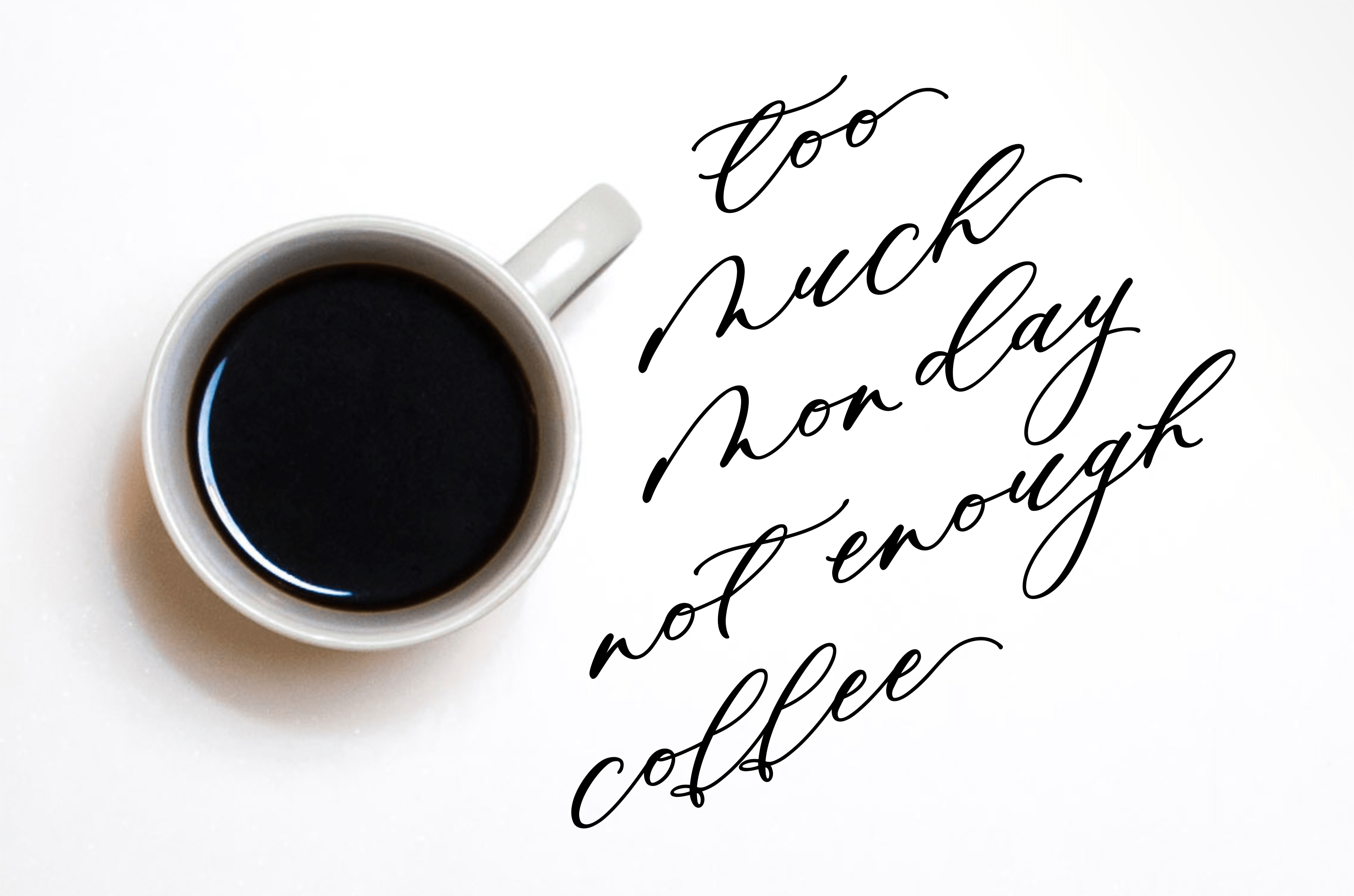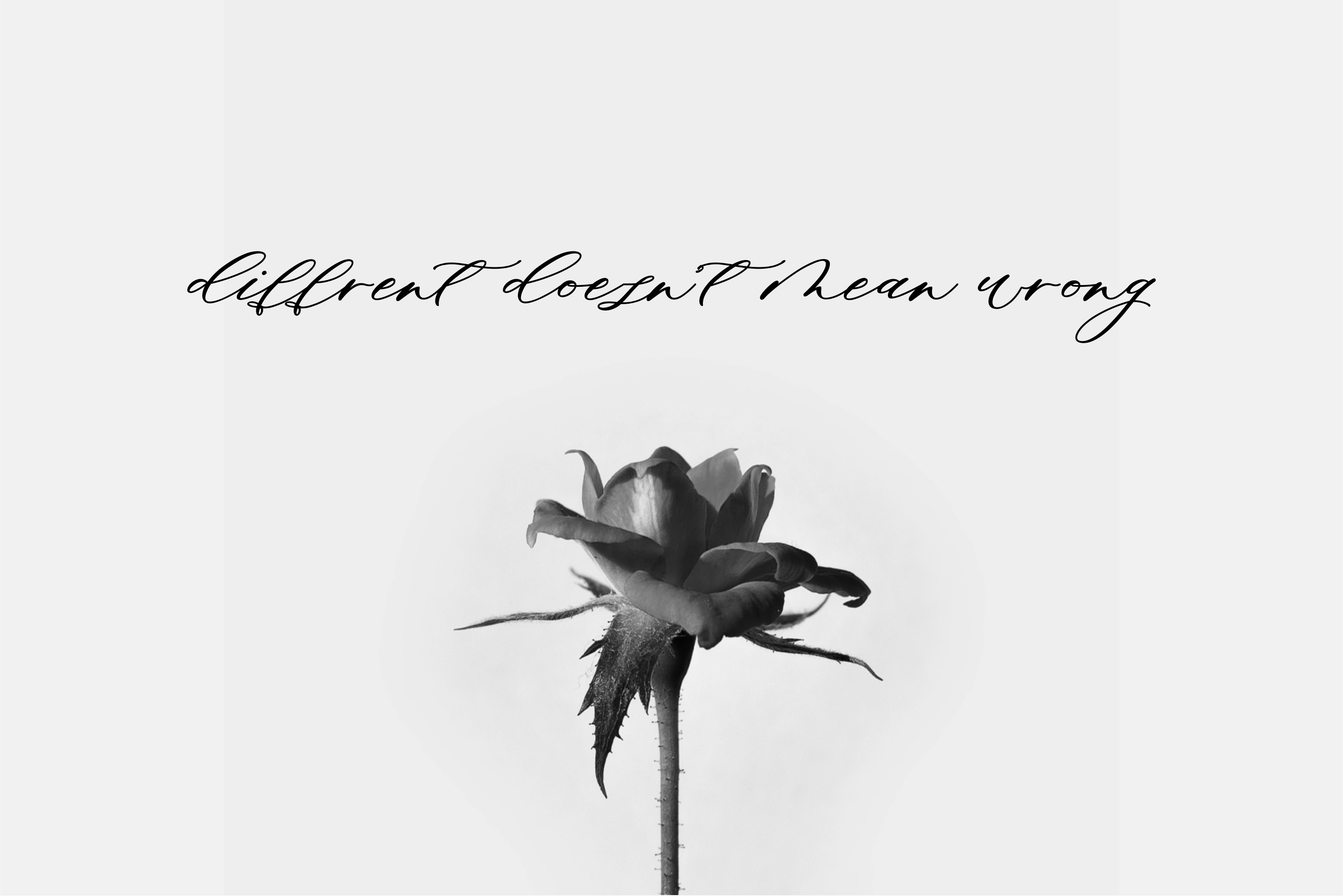
Minimalist Script
Introduce Minimalist Script, align with its name, we keep make it simple with every font, we make it italic look but still beautifully perfect once you make it into a sentence. For every font, we provide 2 alternative choices, both for the uppercase and the lowercase Charter plus ending swashes on the small letter. Minimalist provides beautiful letter essence for any design project including wedding invitation, Quote, Branding, social media, photography overlays, etc.